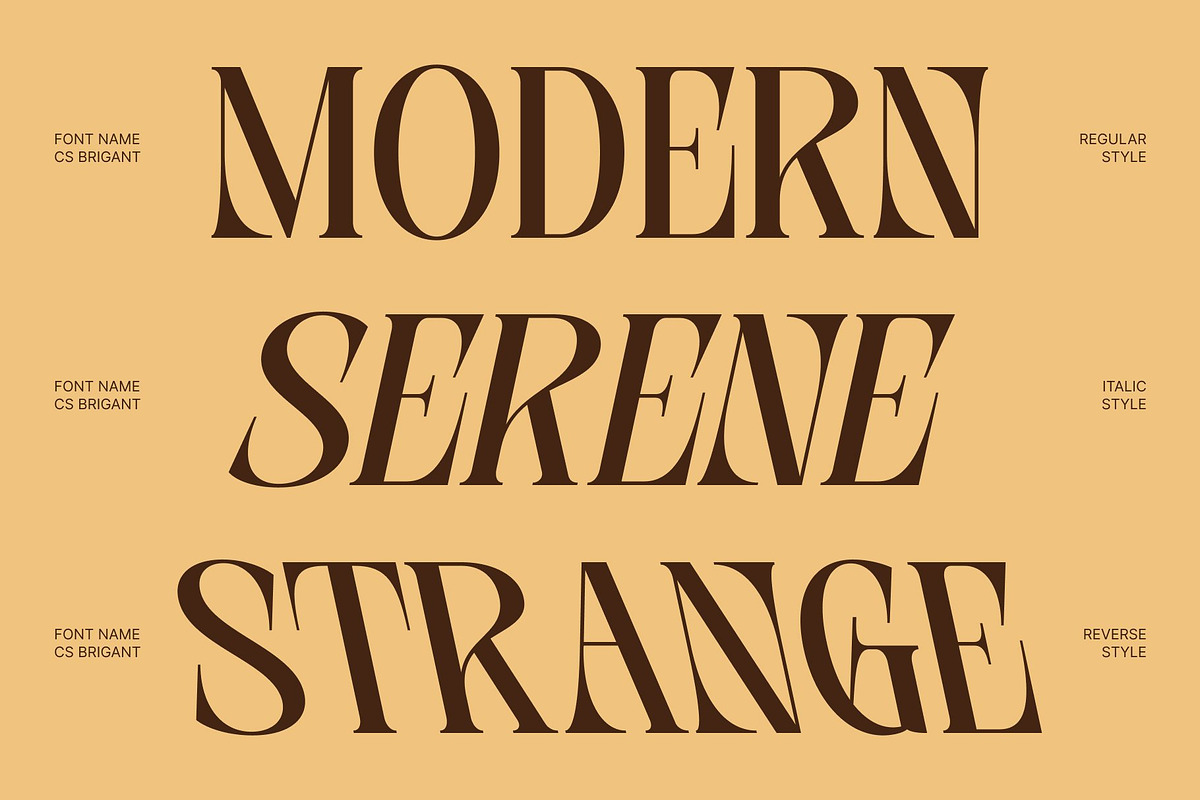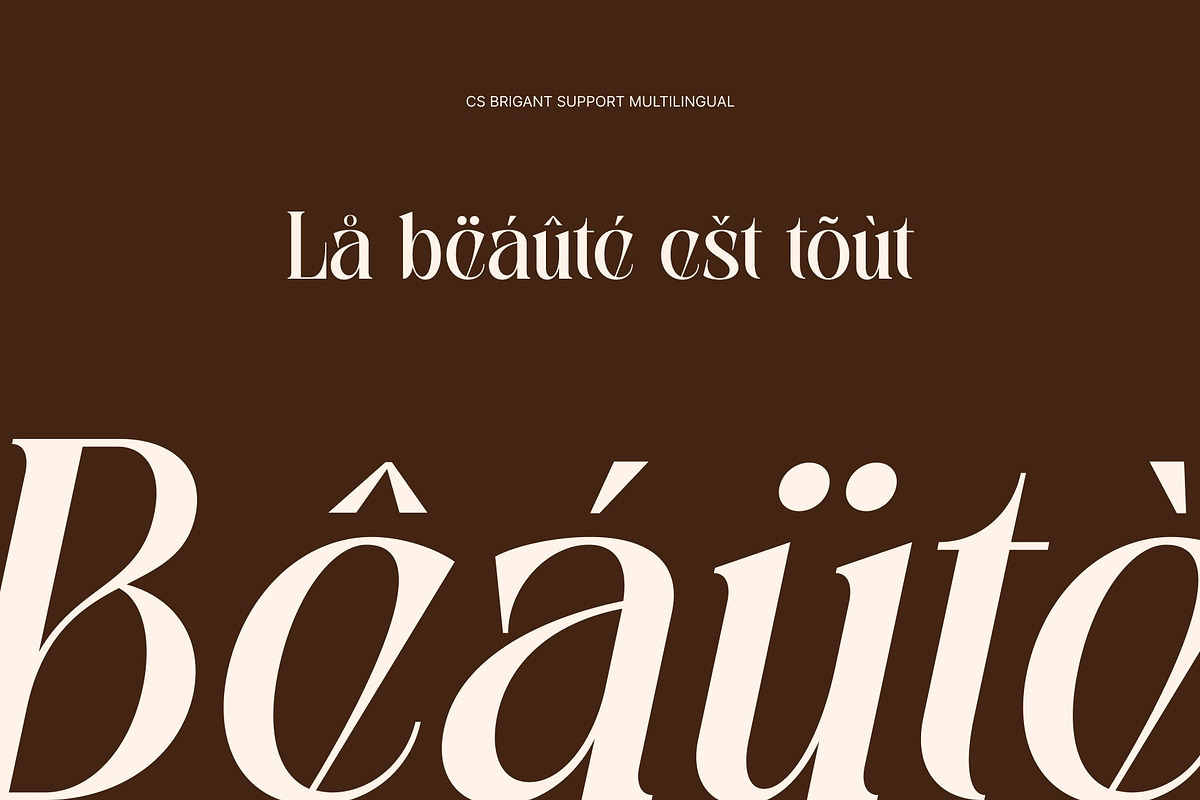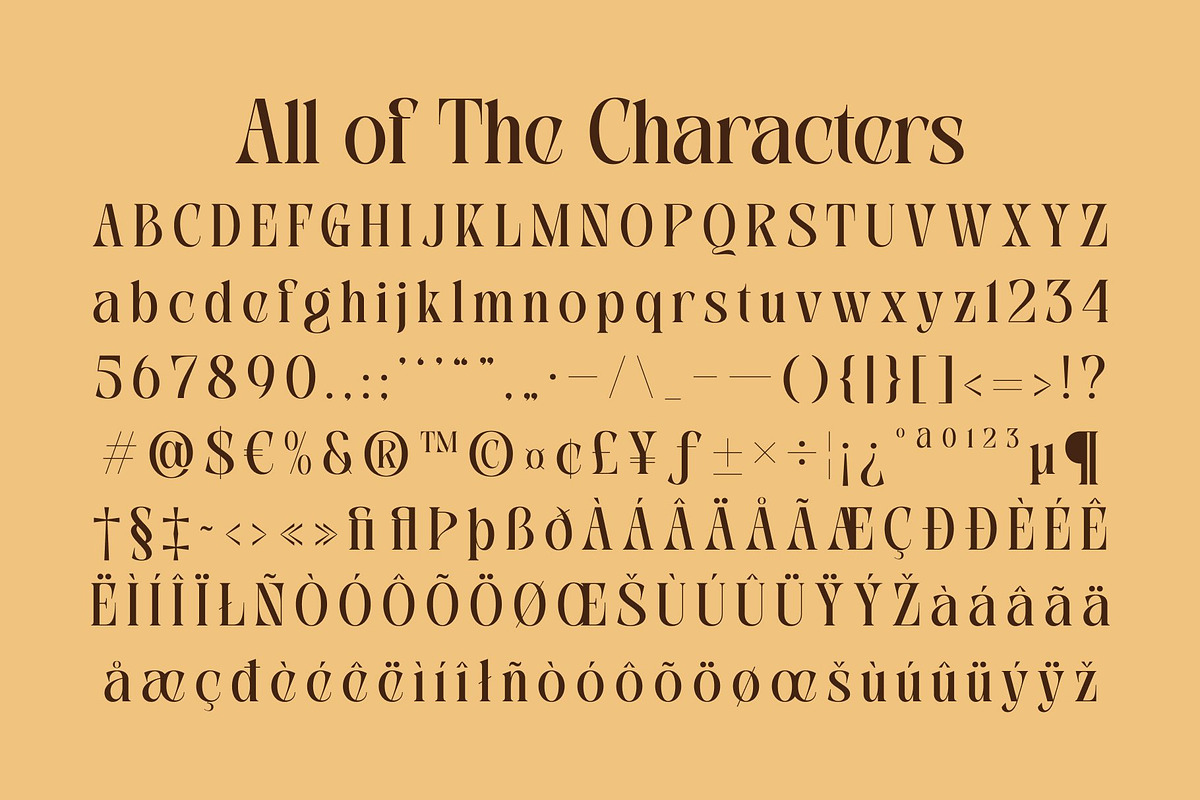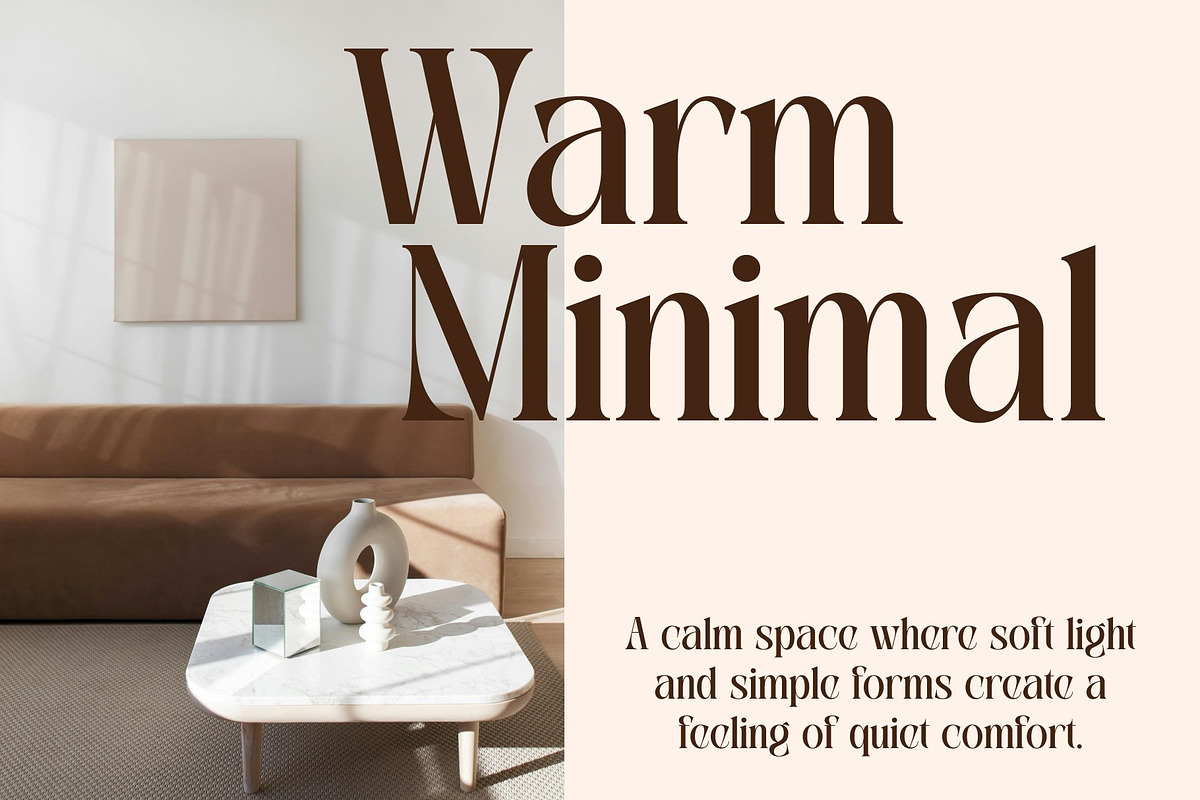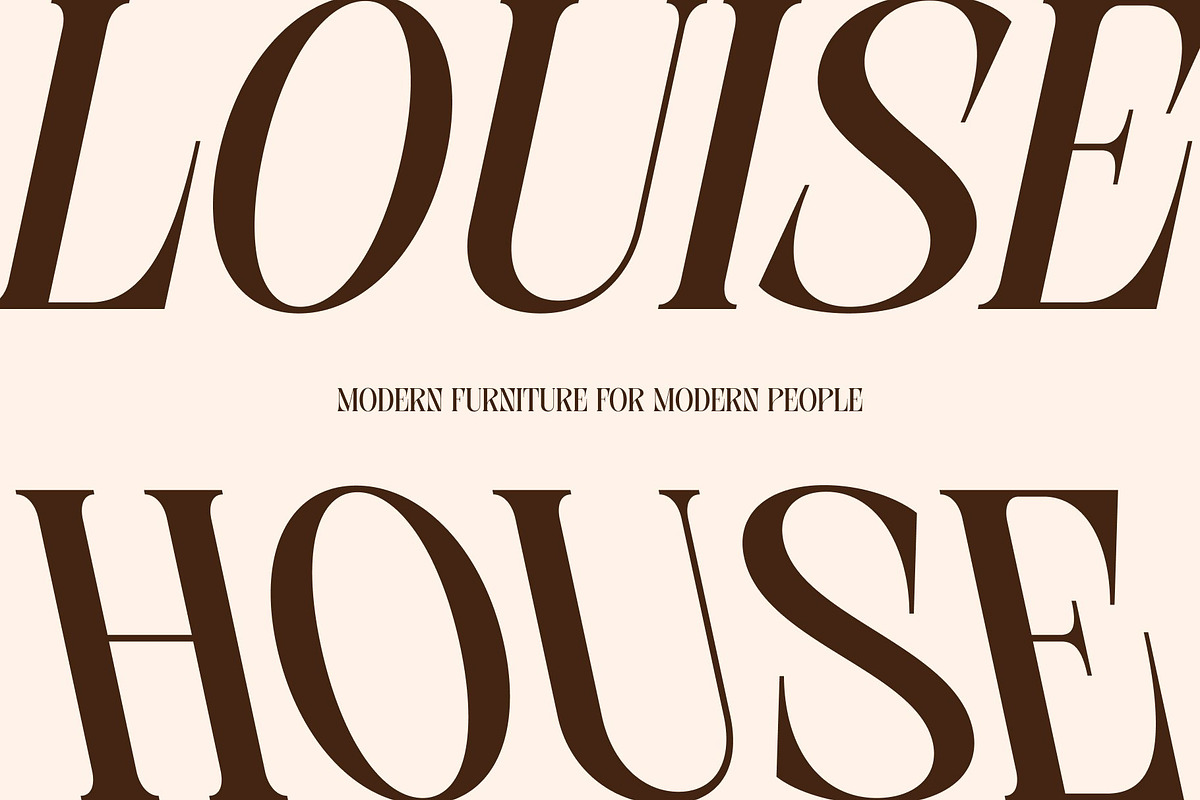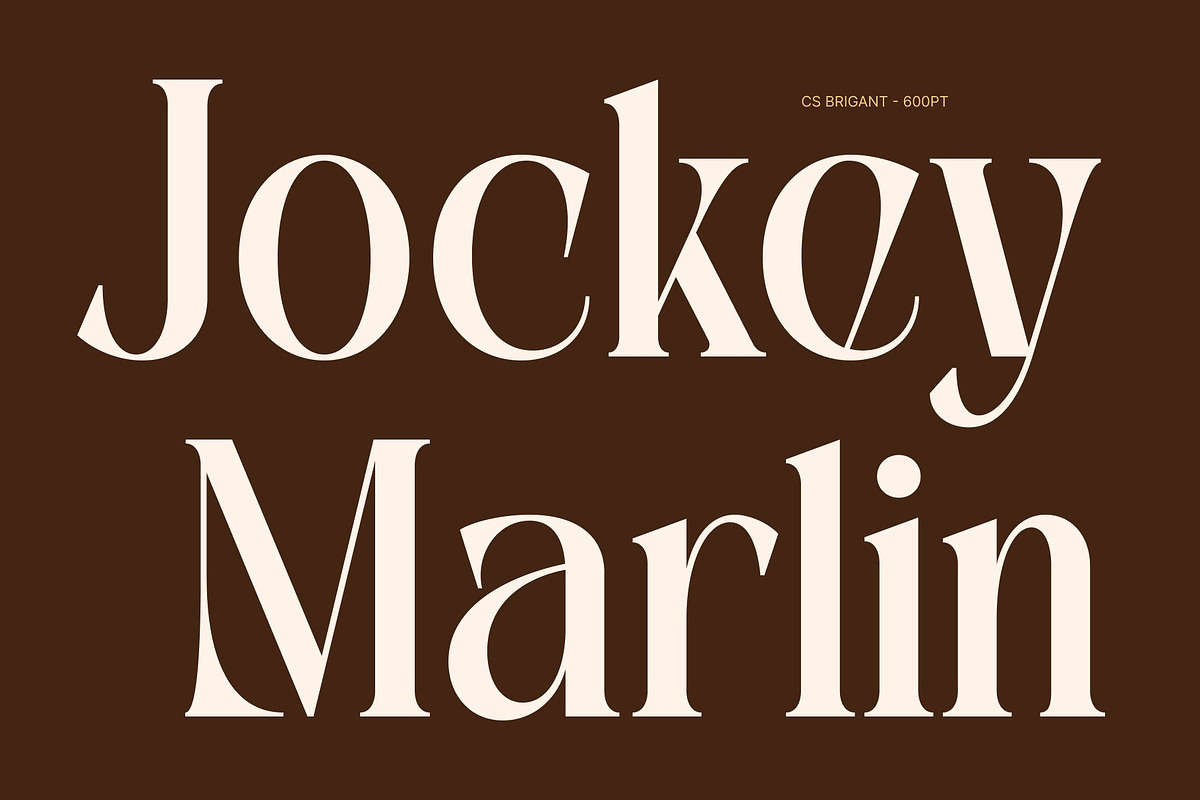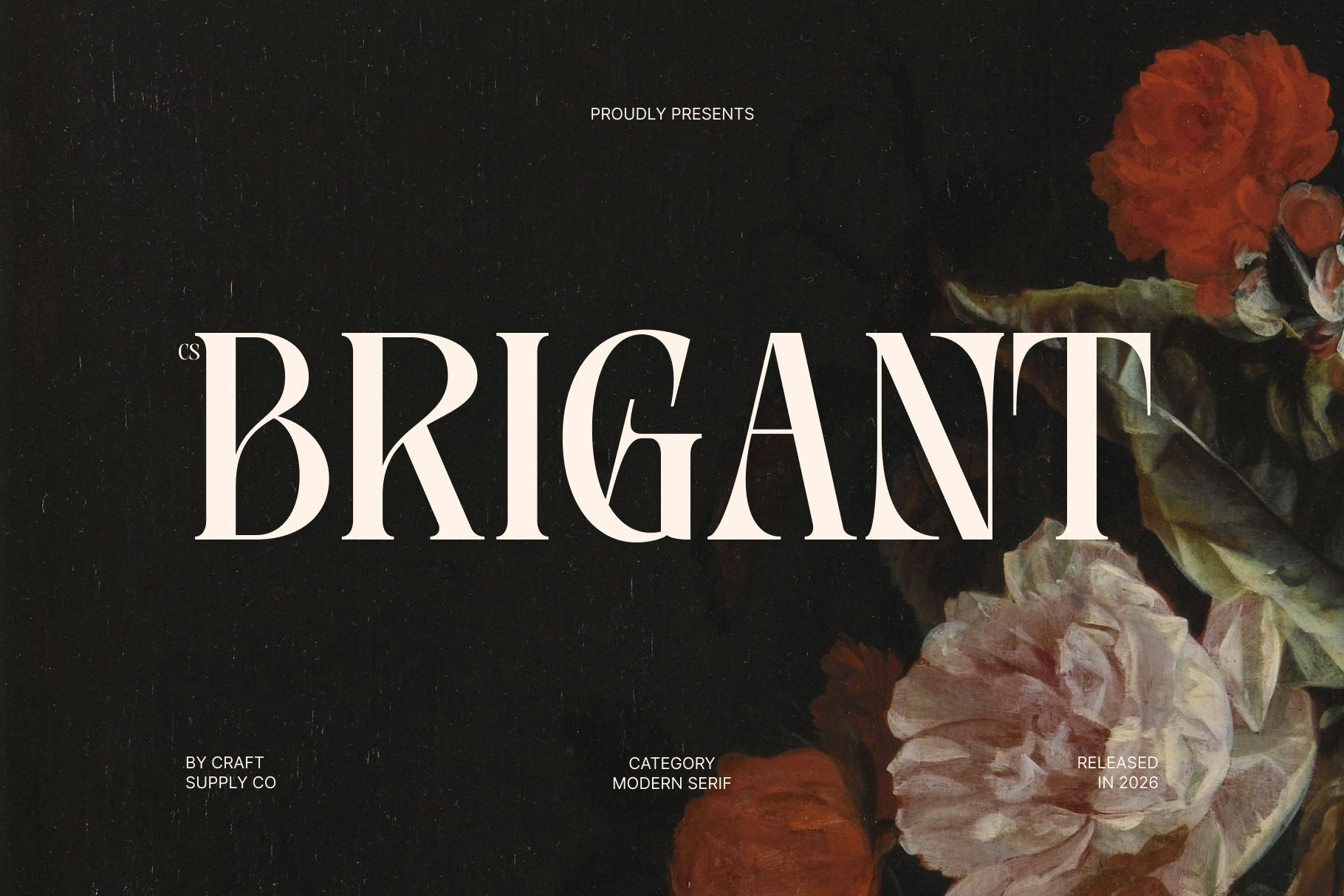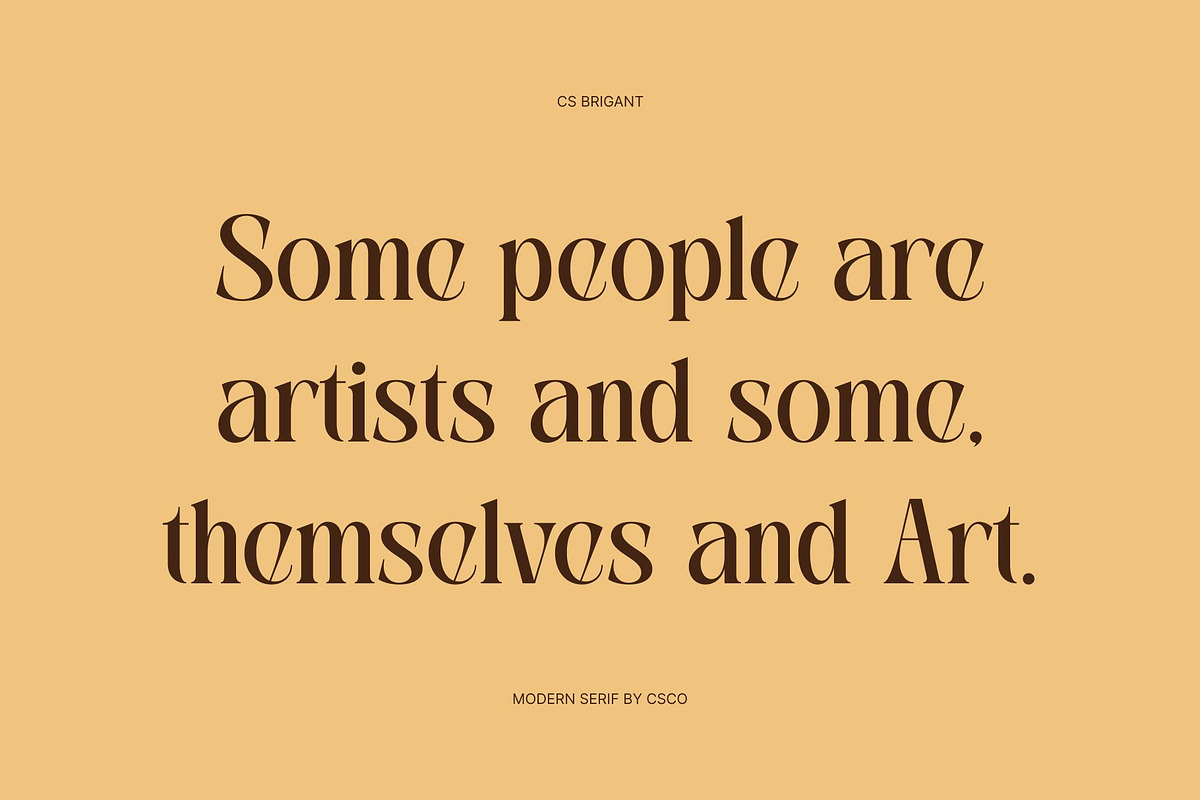
CS Brigant – Modern Serif Font
CS Brigant – Modern Elegant Serif with Contemporary Refinement
Timeless Serif with Modern Sophistication This is an modern elegant serif font that combines timeless typographic tradition with a modern contemporary style. Designed to bring refinement and balance to every composition, this typeface offers a graceful and polished voice that feels both classic and fresh. It is created for designers who value elegance, readability, and enduring visual appeal.
Refined Curves with Graceful Character The defining beauty of this font lies in its refined curves and carefully balanced proportions. These subtle details create a smooth and harmonious rhythm that enhances readability while adding a sense of sophistication. Each letterform feels deliberate and poised, delivering a calm and confident typographic presence.
Contemporary Style with Lasting Appeal While rooted in classic serif traditions, this font introduces a modern touch that keeps the design relevant and versatile. Its clean structure allows it to work effortlessly across print and digital media, ensuring a refined and contemporary appearance in any context.
Perfect for Editorials, Packaging, and Branding From advanced book layouts and editorial design to luxury packaging and branding, this font offers a versatile typographic solution. Its timeless elegance and modern refinement ensure your designs feel sophisticated, professional, and visually enduring.
CS Brigant Regular
CS Brigant Italic
CS Brigant Reverse Italic